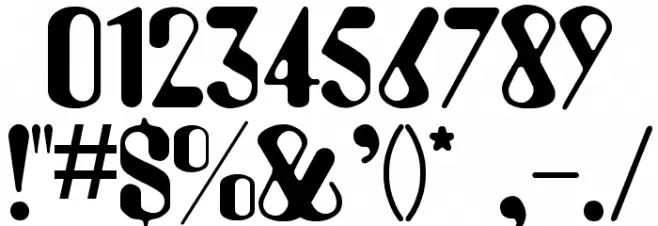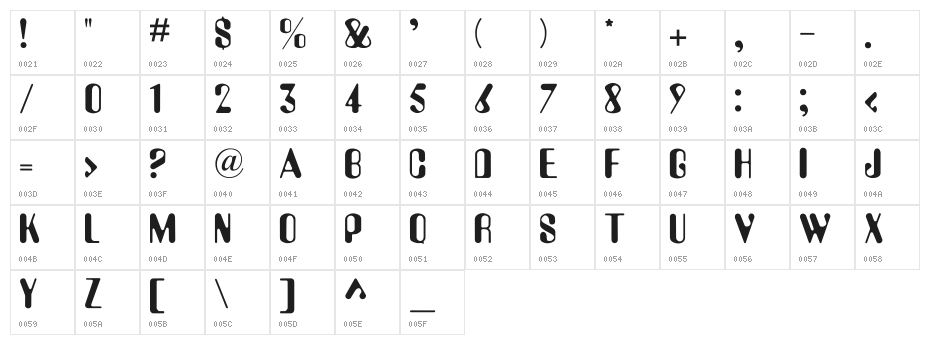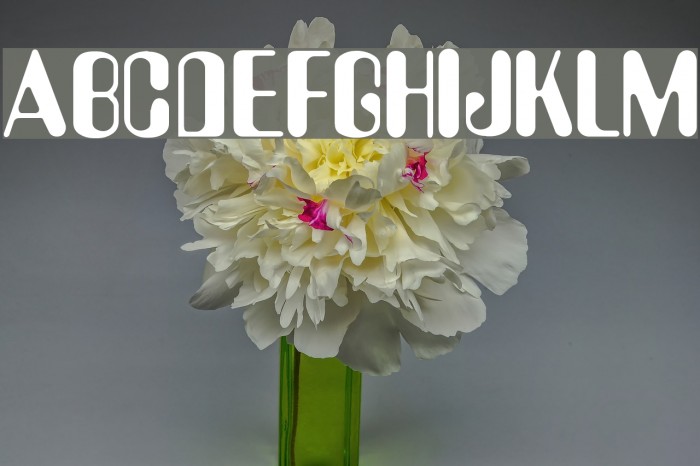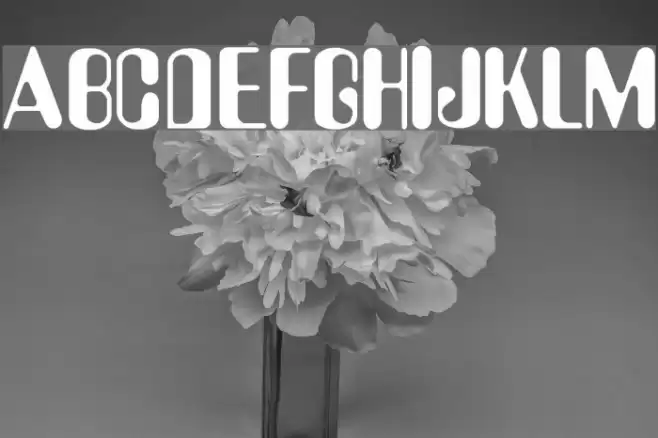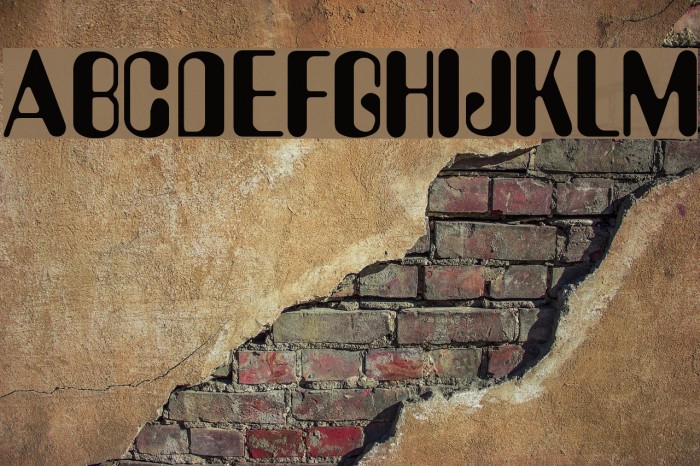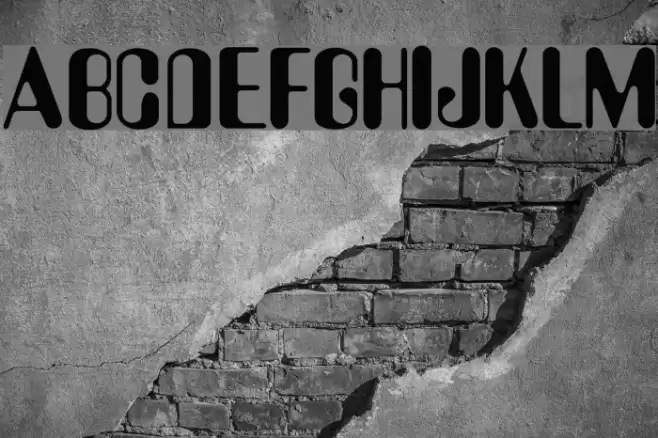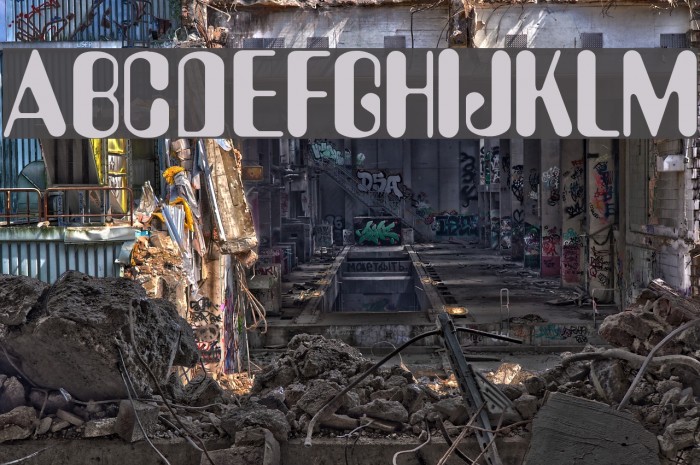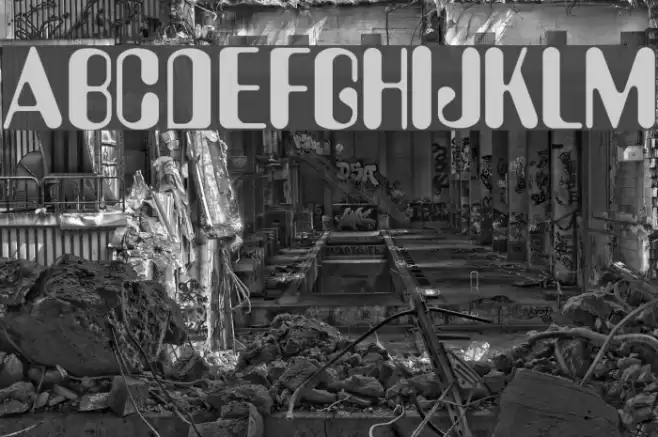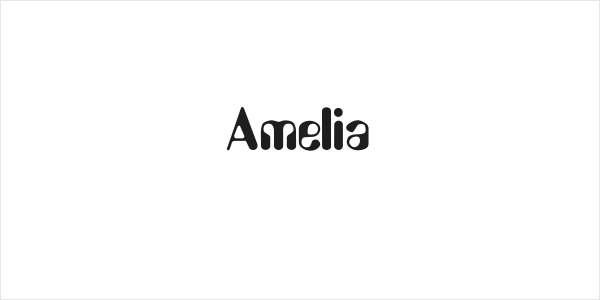
Amelia Font
Amelia Description
This font features a bold and modern design with a unique blend of geometric shapes and smooth curves. The uppercase letters are characterized by their thick, rounded forms and consistent stroke width, creating a strong visual impact. The lowercase letters maintain the same boldness, with some characters exhibiting playful, unexpected twists in their structure. The numerals are equally bold, with a distinctive style that complements the alphabet. Special characters are designed with the same attention to detail, ensuring a cohesive look across all glyphs. This font's overall appearance is both contemporary and eye-catching, making it suitable for a variety of design applications.